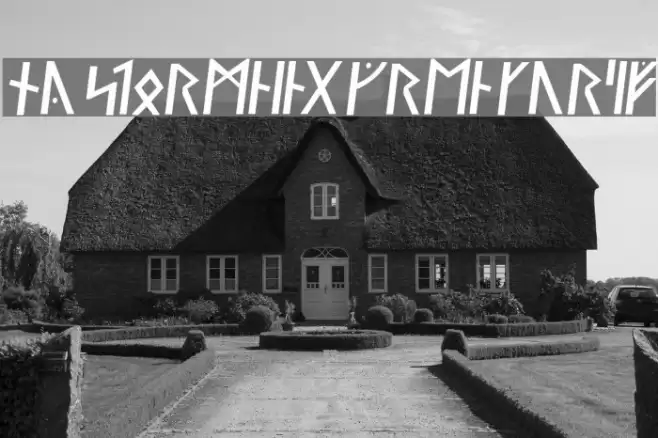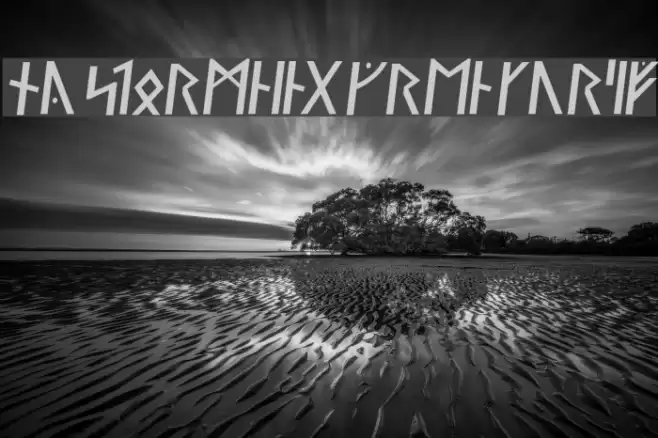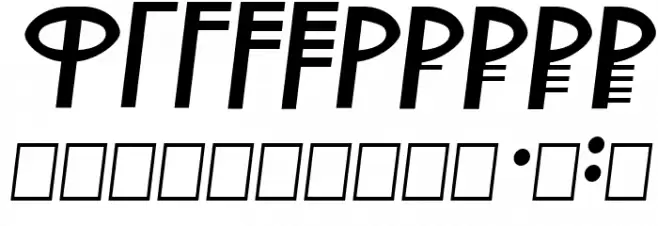
Ny Stormning Gren Kursiv Font
Ny Stormning Gren Kursiv Description
This font features a unique and striking design inspired by ancient runic alphabets. Each character is crafted with sharp, angular lines and geometric shapes, giving it a bold and mysterious appearance. The letters are highly stylized, with some incorporating additional decorative elements like dots and slashes. The overall aesthetic is both modern and archaic, making it suitable for projects that require a touch of historical or mythical flair. The font's distinctiveness makes it ideal for creative and artistic applications, where a strong visual impact is desired.
A bold, runic-inspired font with sharp, angular lines and geometric shapes from Uncategorized fonts.
- Proposed Projects: Perfect for fantasy-themed designs, video game titles, movie posters, or any project needing a mythical or historical touch.
- Overall Style: Decorative, Mythical